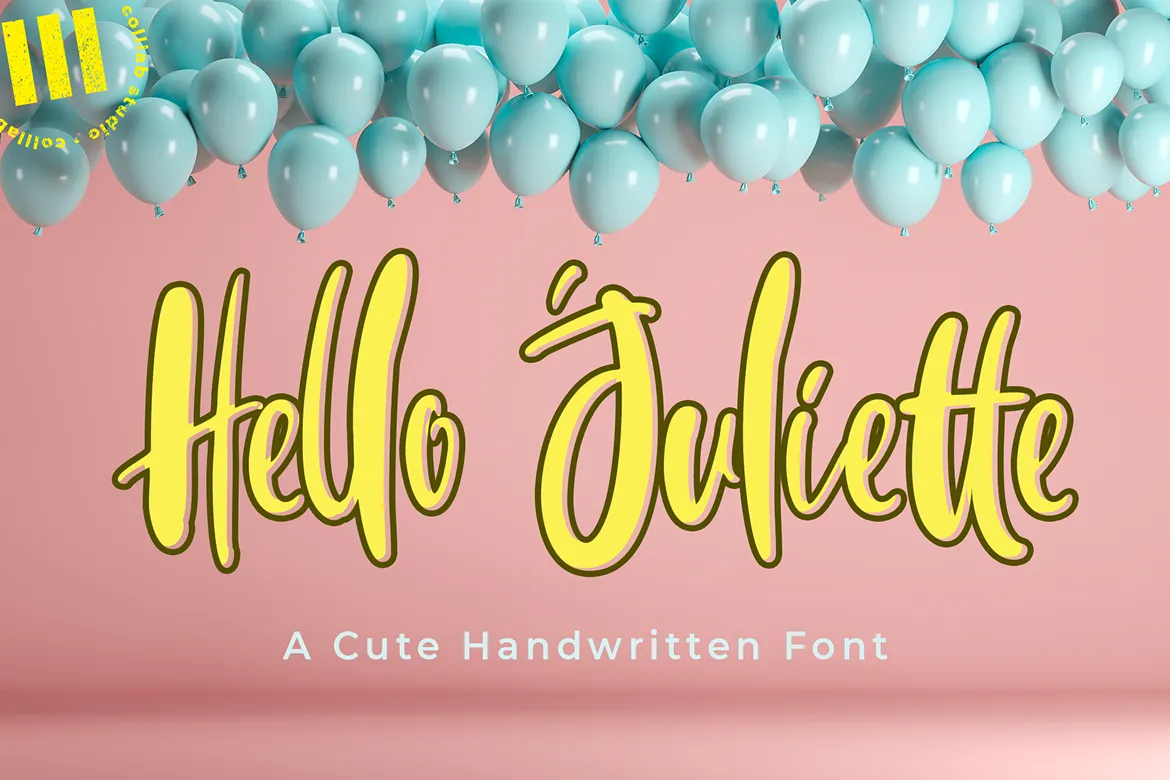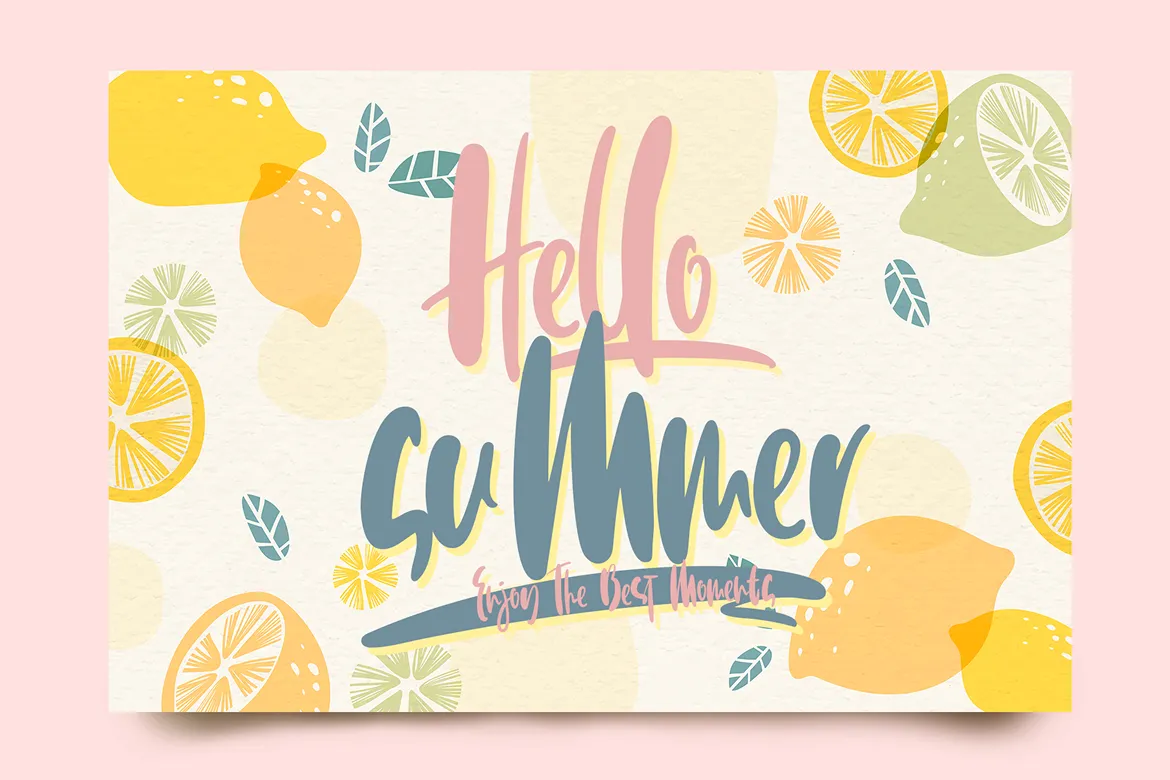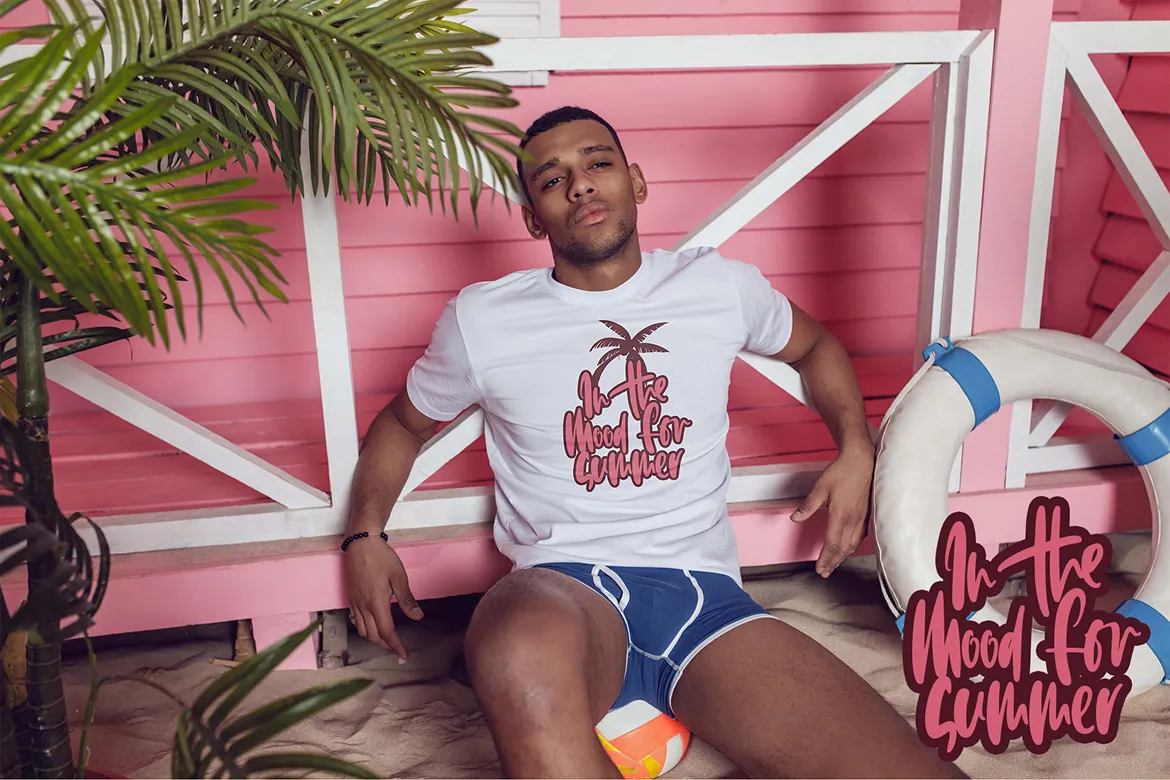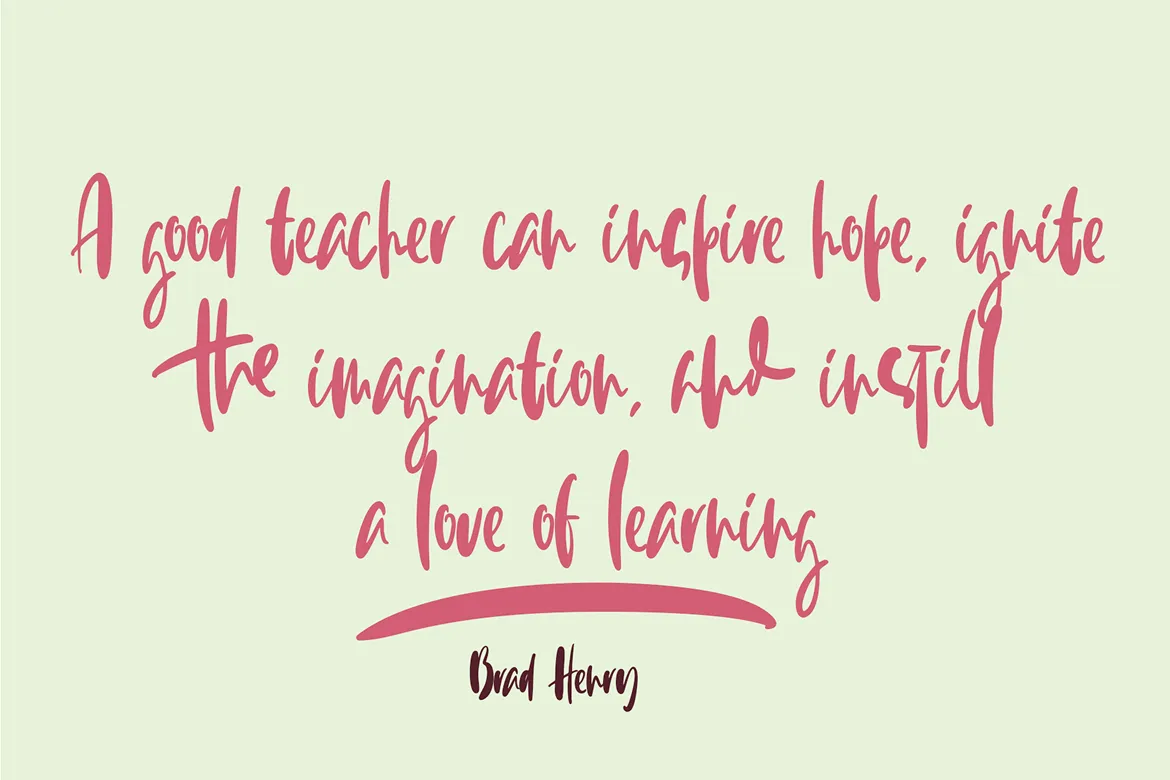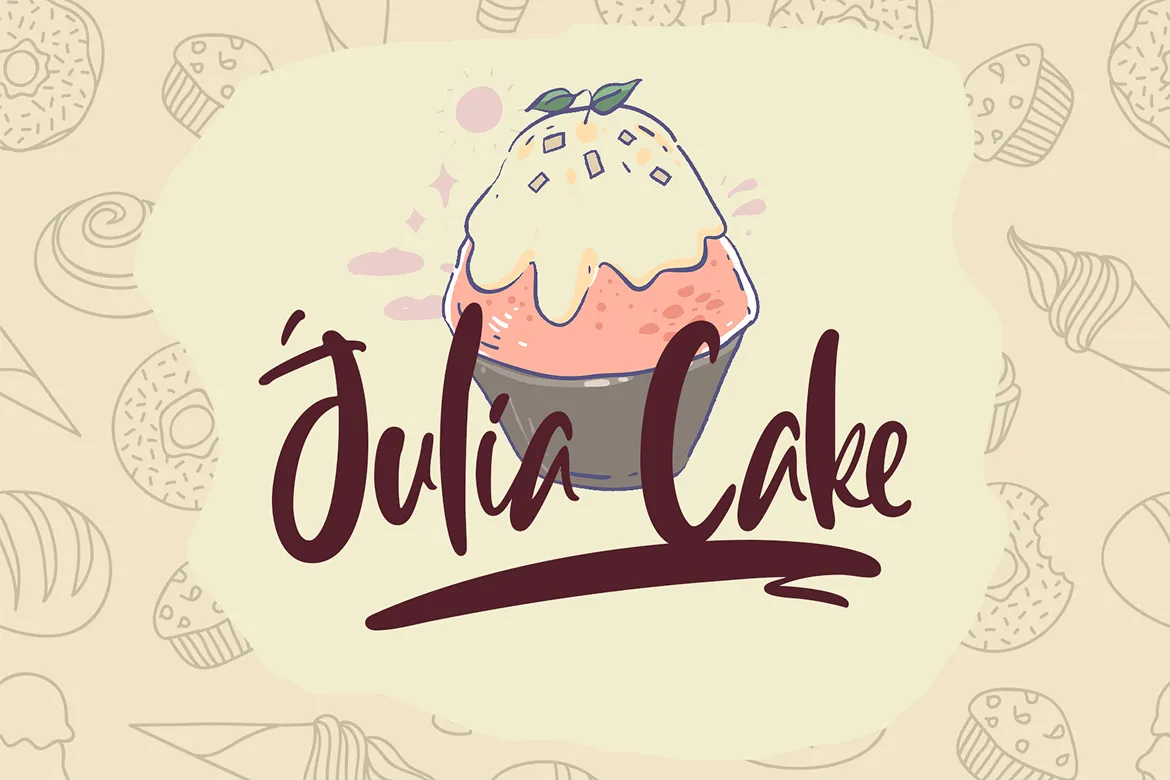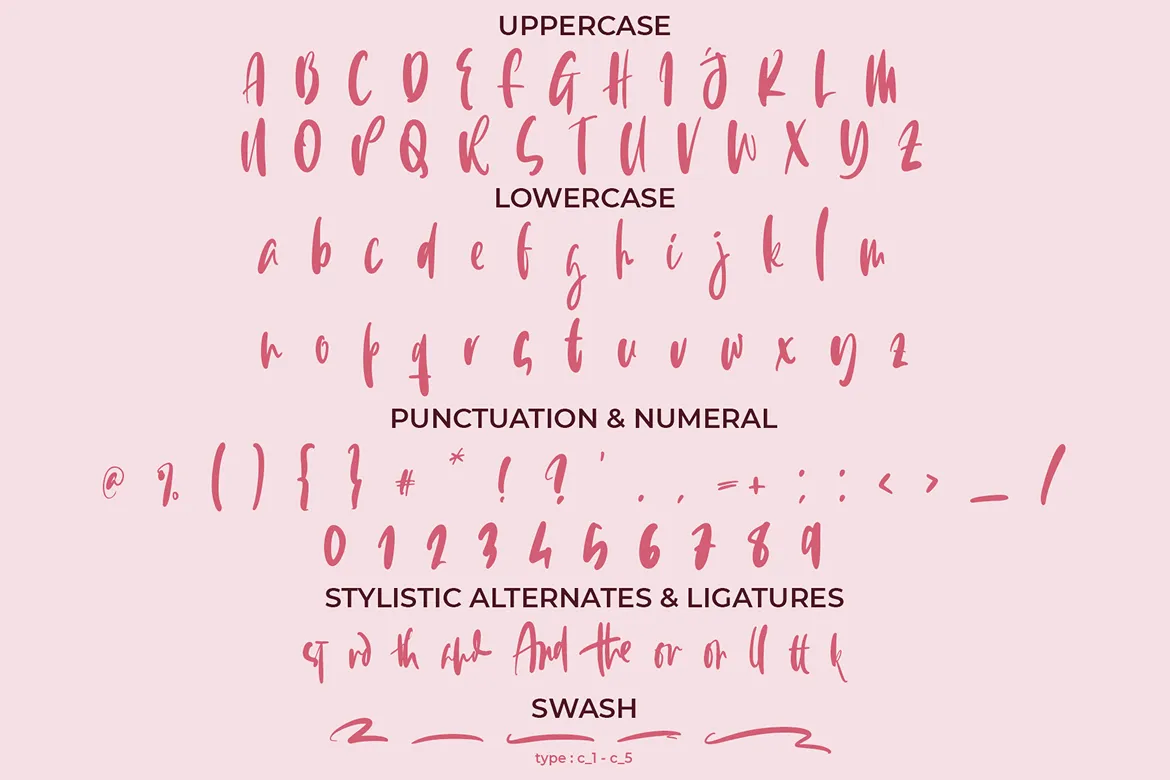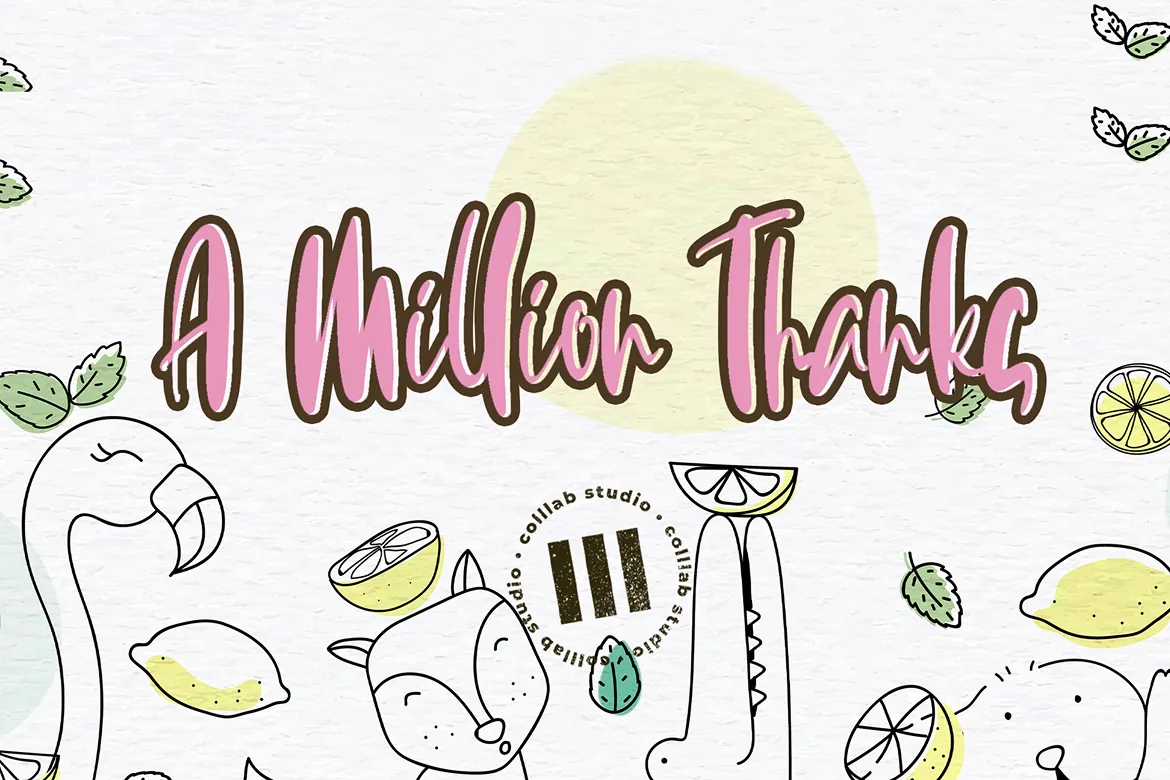
Hello Juliette is a charming handwritten script font that combines elegance with playfulness. With its decorative swashes, smooth ligatures, and irregular baseline, this font radiates warmth and personality. Perfect for invitations, greeting cards, logos, quotes, and branding, Hello Juliette adds a lively handwritten feel to any creative project.
The design of Hello Juliette was inspired by the carefree joy of handwritten love notes and the playful elegance of modern calligraphy. Its sweet curves and bold strokes make it an ideal choice for projects that want to balance fun with sophistication.
Complete uppercase & lowercase characters
Numbers & punctuation
Beautiful ligatures & swashes
Multilingual support included